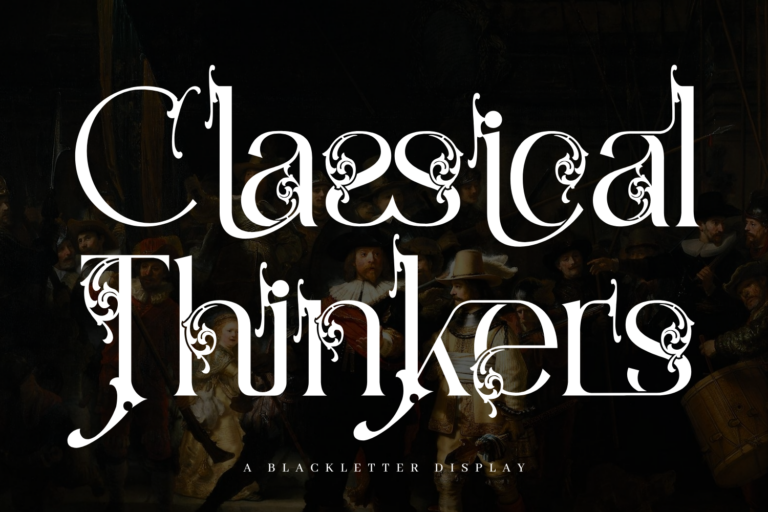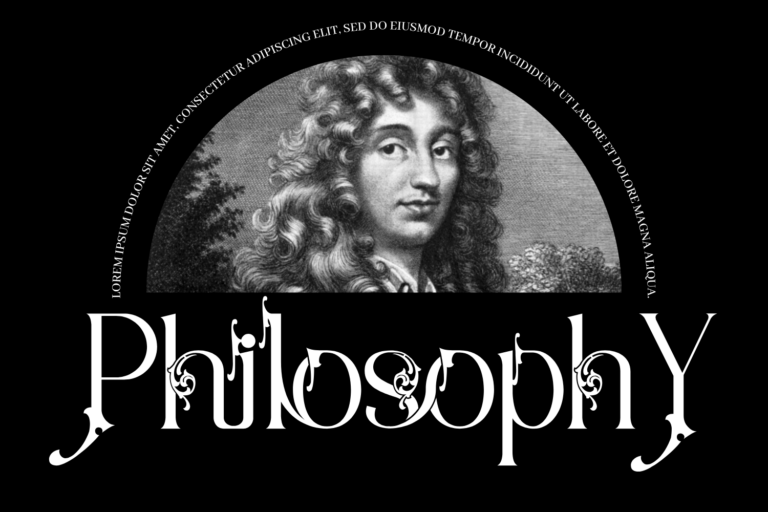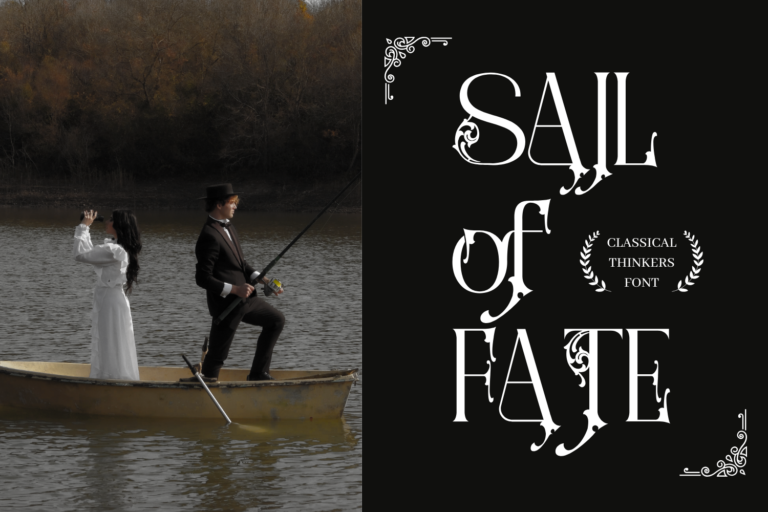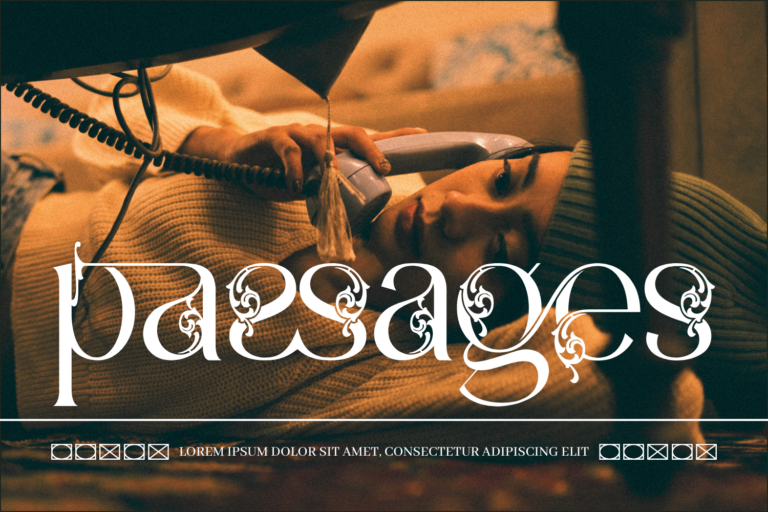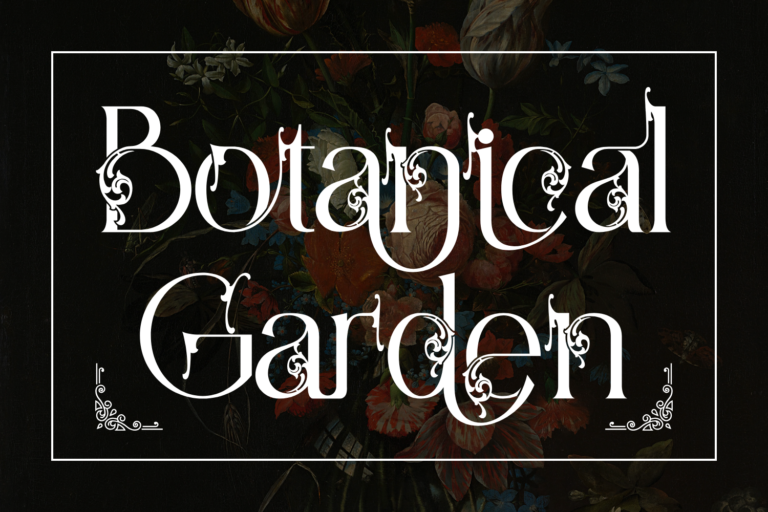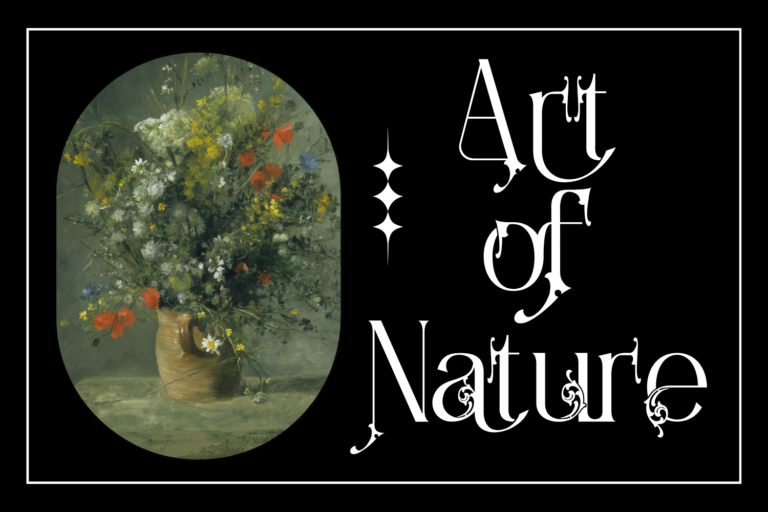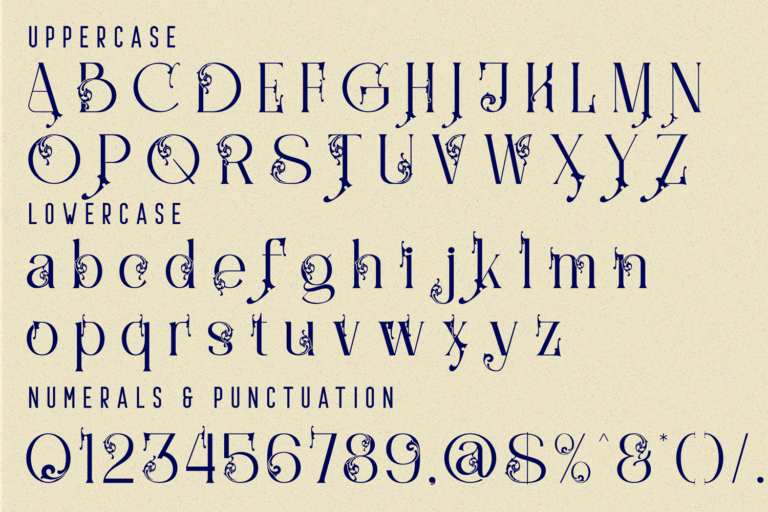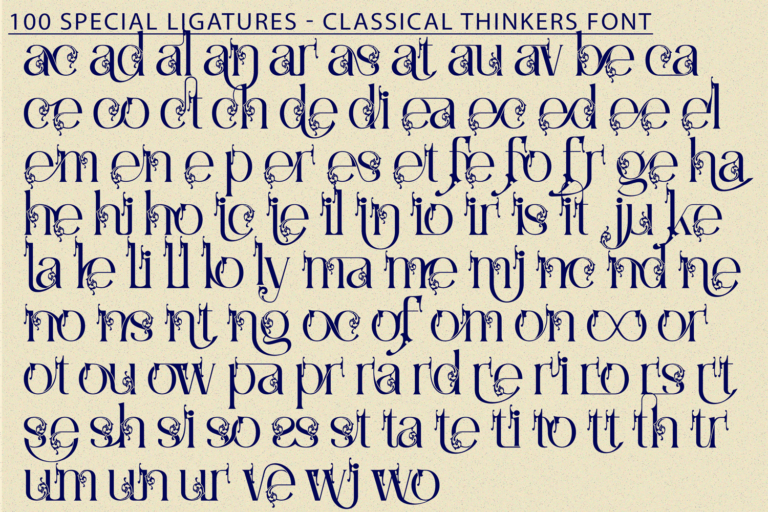
Classical Thinkers – Baroque Font – Classical Decorative Serif Font, a timeless decorative serif display font that embodies classical beauty and intellectual refinement. Inspired by Baroque artistry and Renaissance philosophy, this font is designed for those who seek sophistication and historical grandeur in their creative projects. Featuring elegant curves, ornamental details, and harmonious symmetry, Classical Thinkers stands out as a refined choice for book covers, editorial layouts, luxury branding, art exhibition posters, and more.
Font Features:
• Uppercase & Lowercase Characters
• Approx. 100 Exquisite Ligatures
• Accented Characters (Multilingual Support)
• Stylistic Alternates for Creative Flexibility
ac ad al an ar as at au av be ca ce ch co ct de di ea ec ed ee el em en ep er es et fe fo fr ge ha he hi ho ie ic il in io ir is it ju ke la le li ll lo ly ma me mi nc nd ne ng no nt ns oc of om on oo op or ot ou ow pa pr ra rd re ri ro rs rt se sh si so ss st ta te th ti to tr tt um un ur ve wi wo
Classical Thinkers – Baroque Font